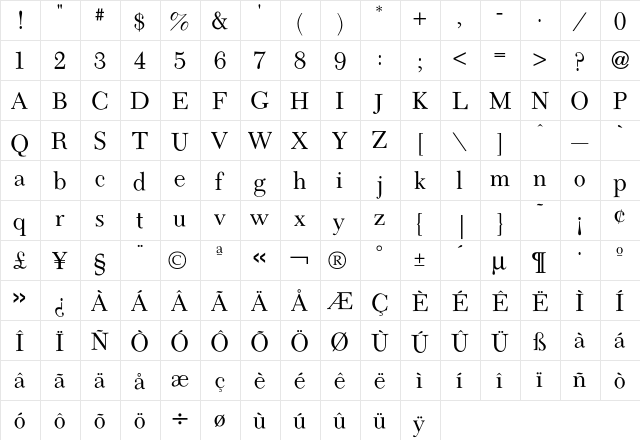
Camelia Roman
Design Context for Camelia Typeface
Camelia offers clean, dependable letterforms without strong stylistic allegiance, making it a practical choice for designers who need flexibility.
Pro Tip: Use Camelia in both headline and body roles to test its range before committing to a single application.